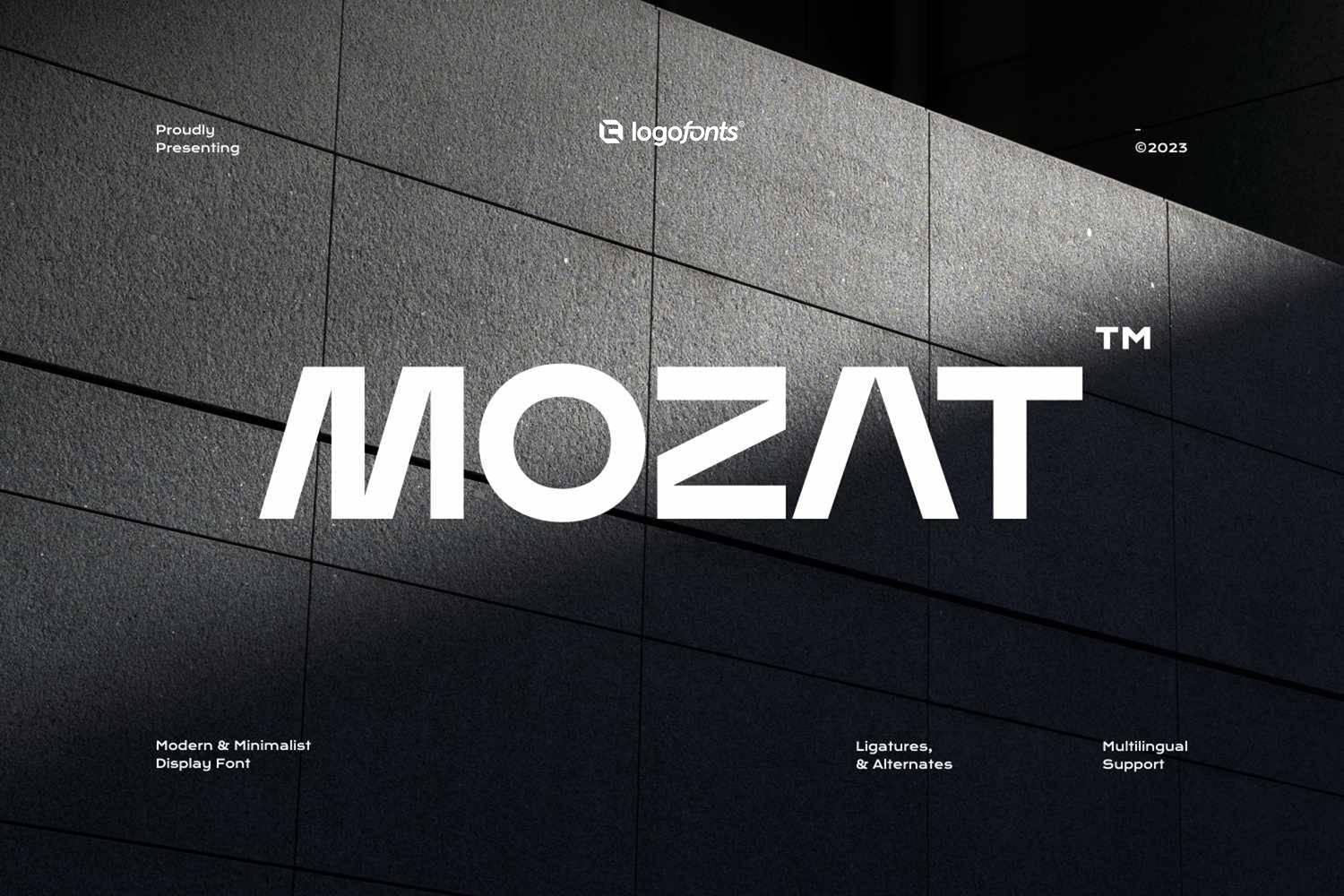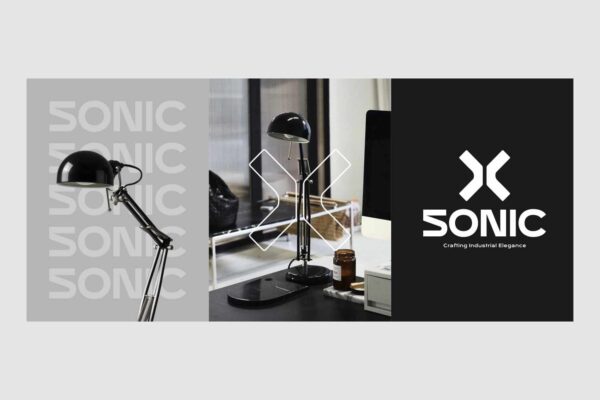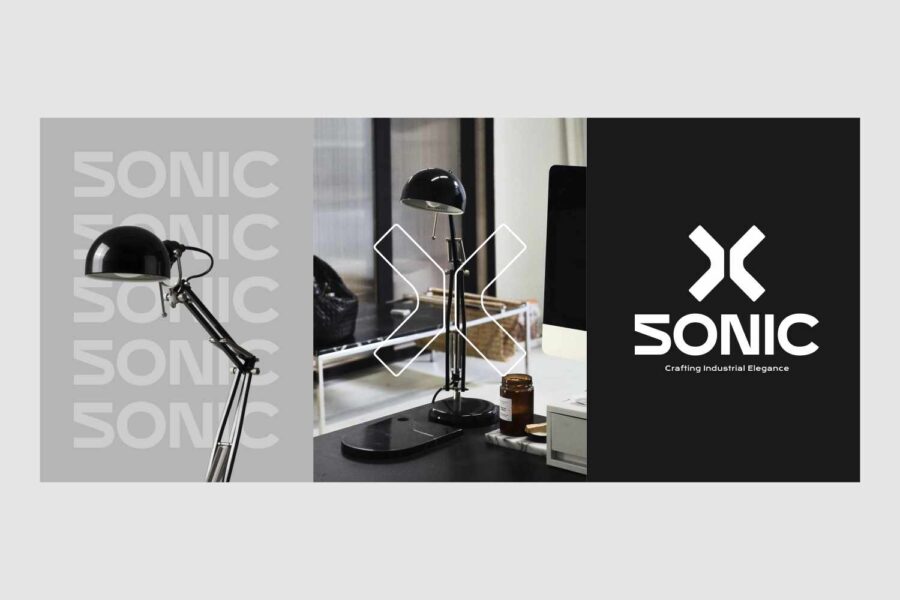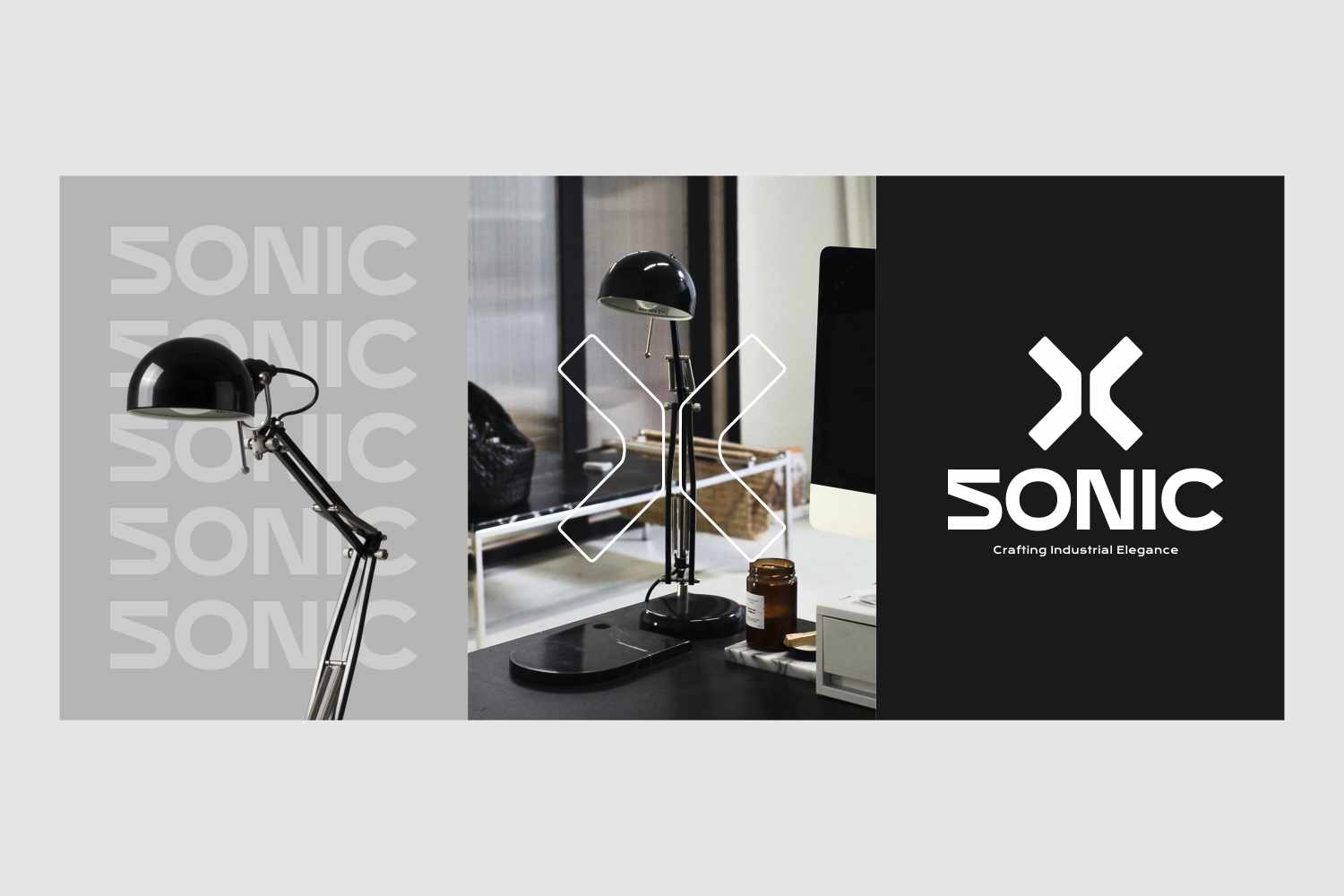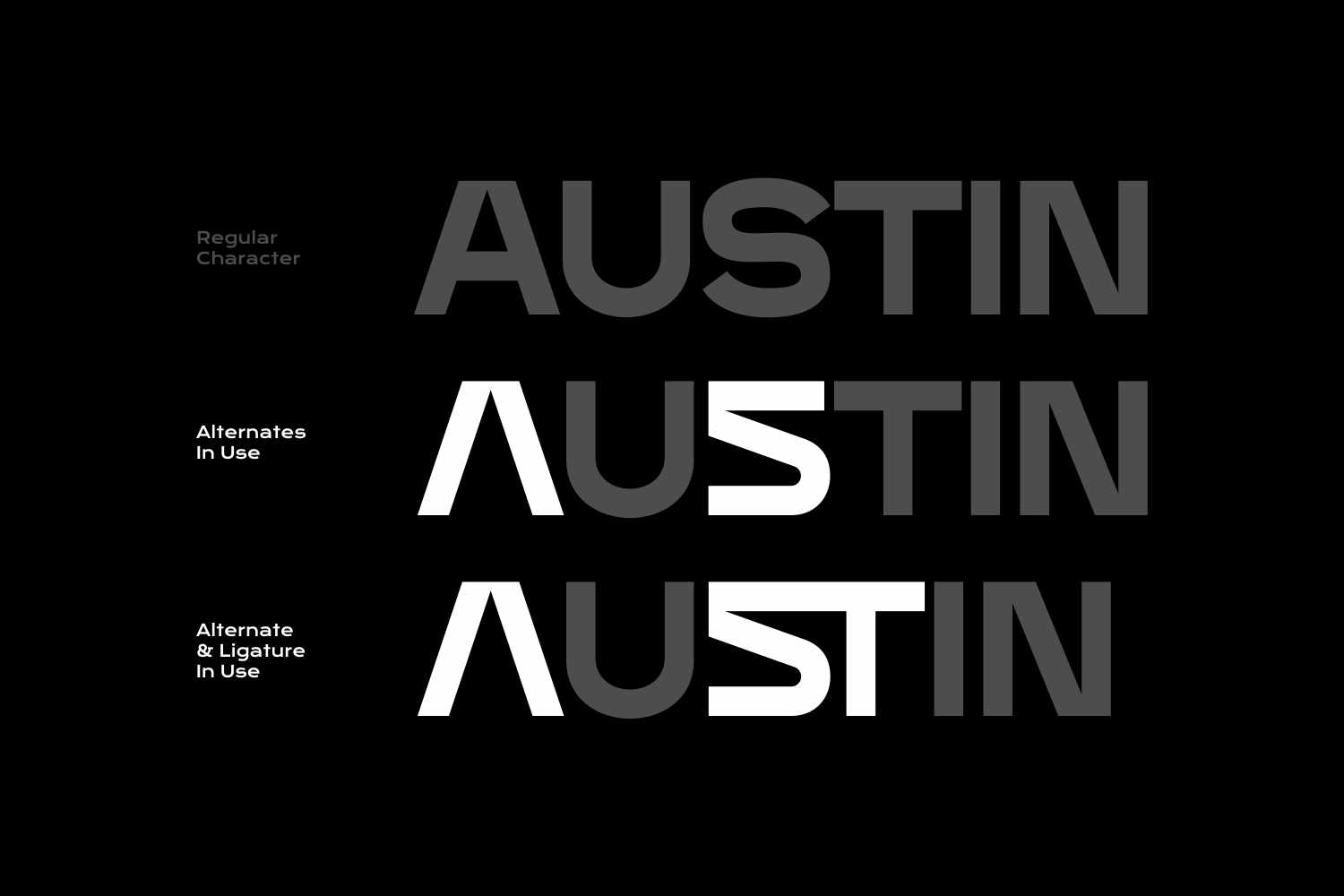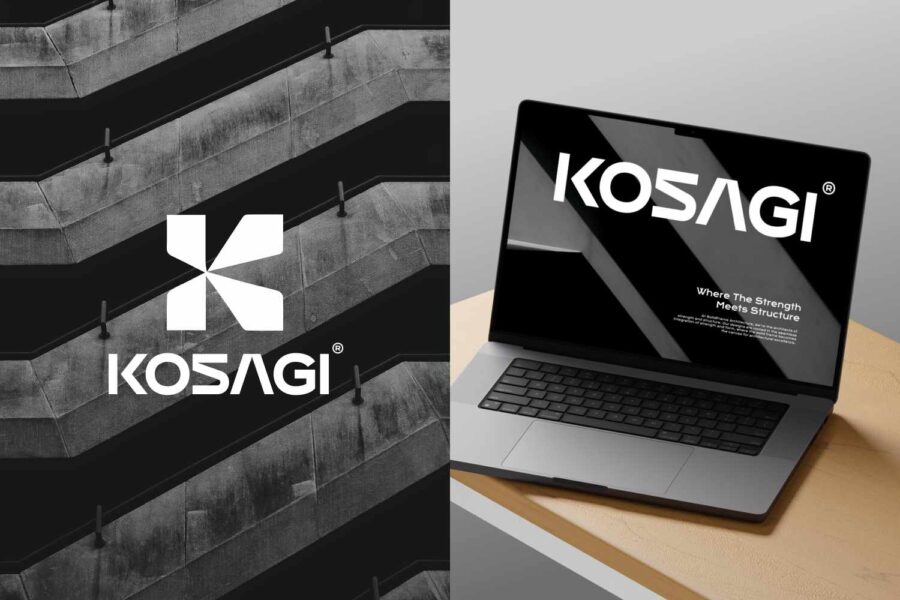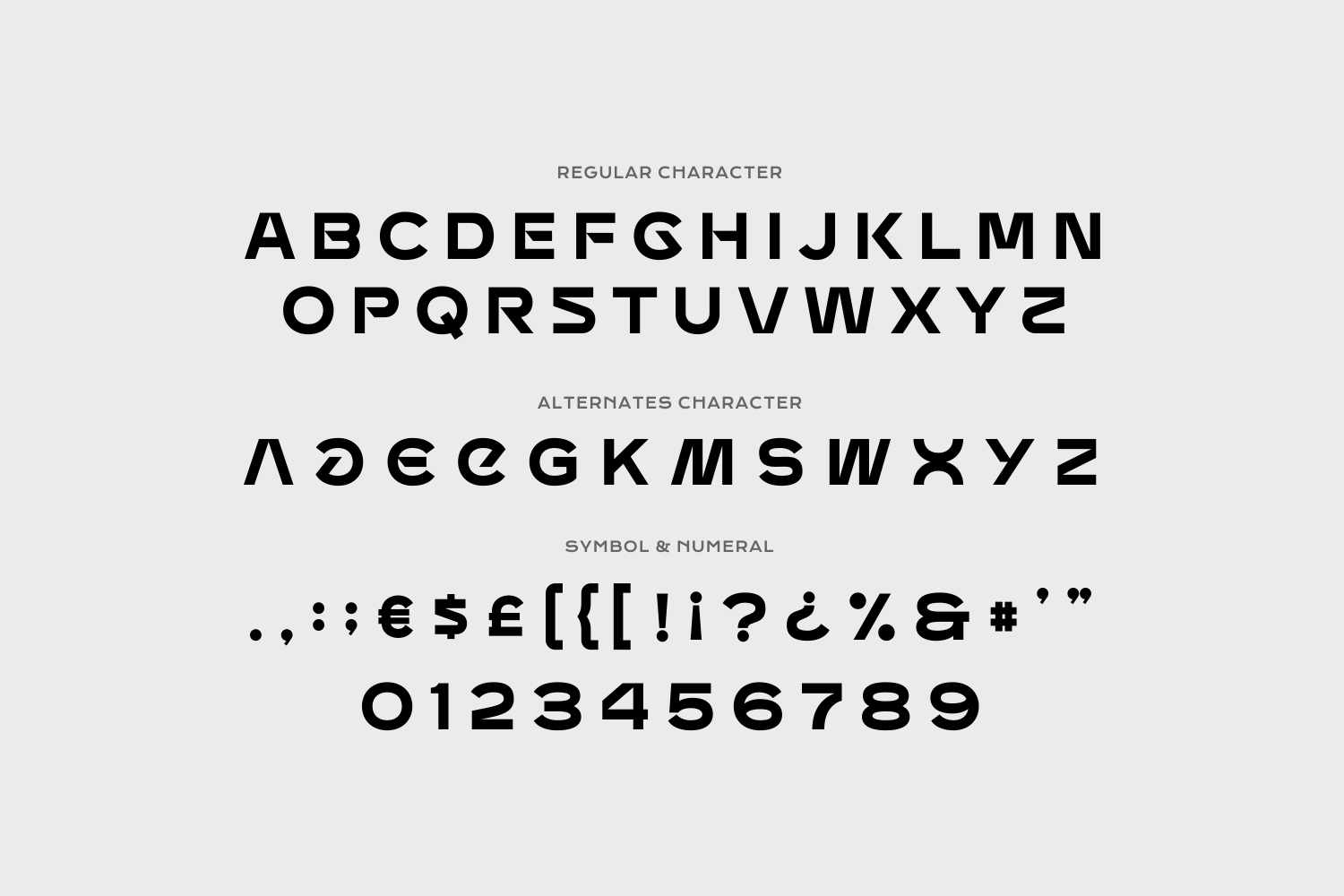
Mozat is a modern and minimalist display font that blends geometric structure with futuristic flair. With its sharp angles and alternate letterforms, Mozat is crafted to stand out in branding, technology, and digital design projects. Its clean lines and stylish construction create a bold yet balanced typeface that works effortlessly across logos, posters, product packaging, and editorial layouts.
This font family includes alternate characters, ligatures, and full multilingual support, making it a versatile tool for designers seeking flexibility and uniqueness. Whether you’re working on a startup brand, an industrial product, or a creative headline, Mozat offers a dynamic and powerful typographic experience that commands attention.
Mozat